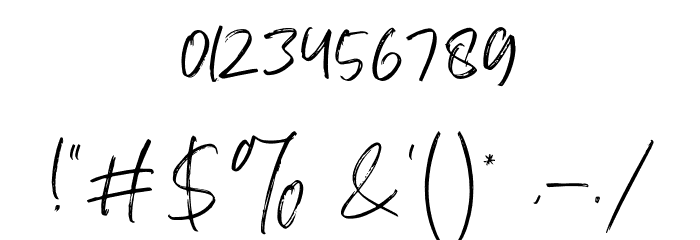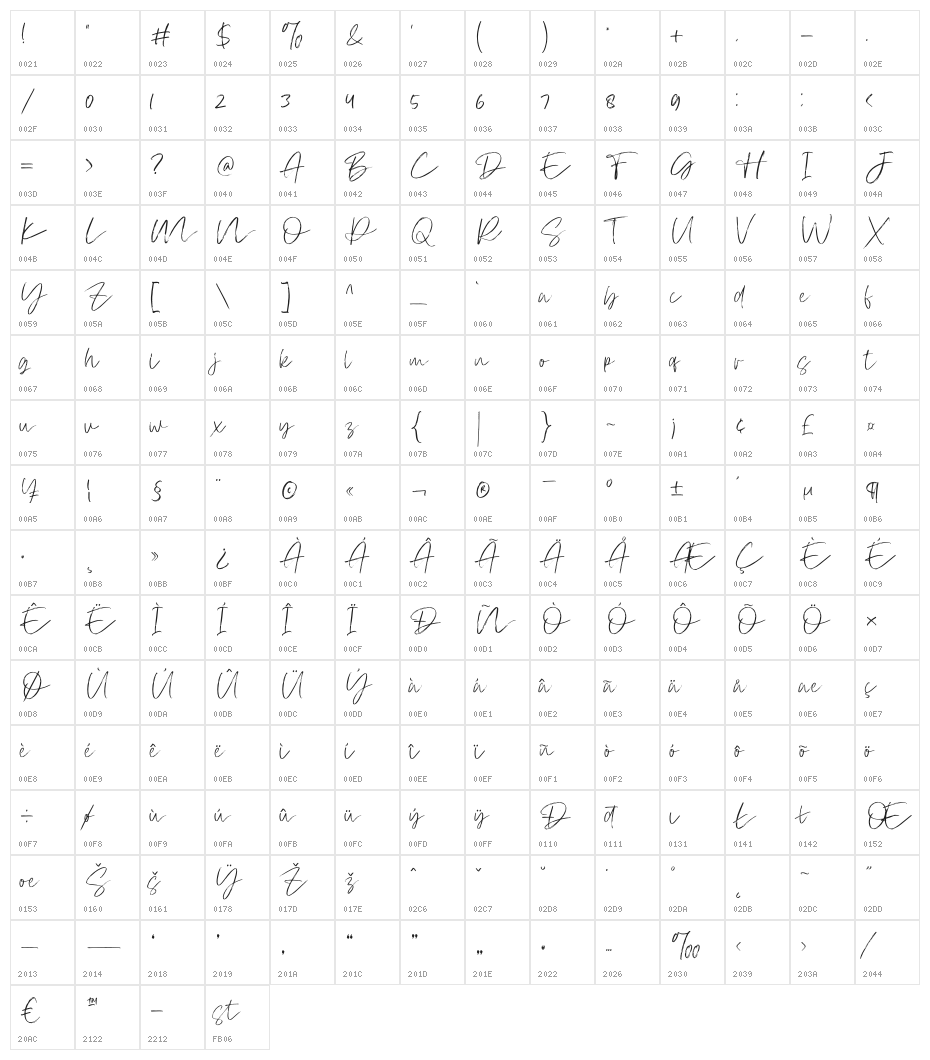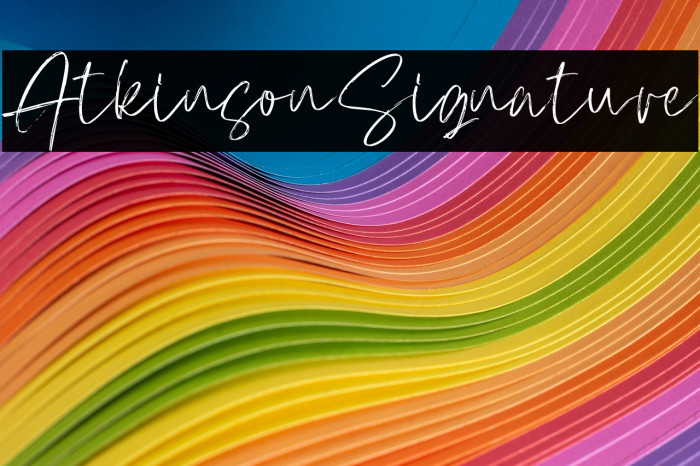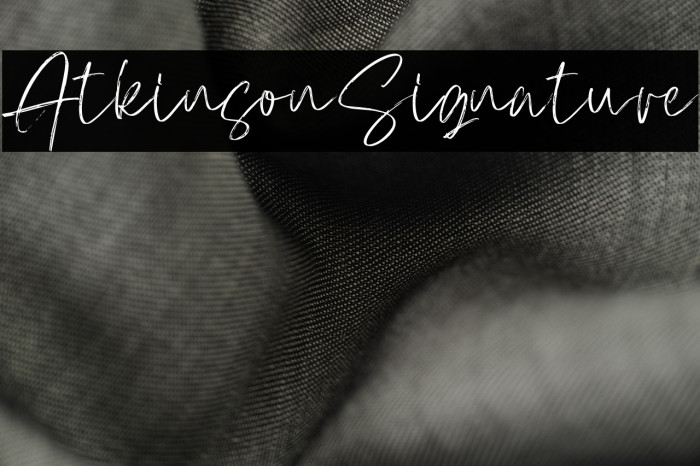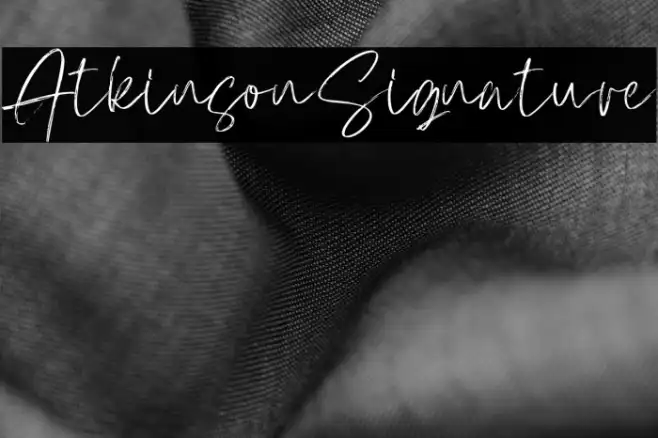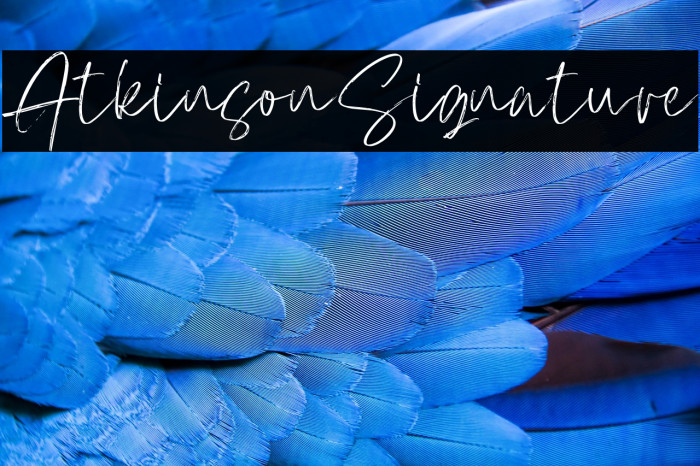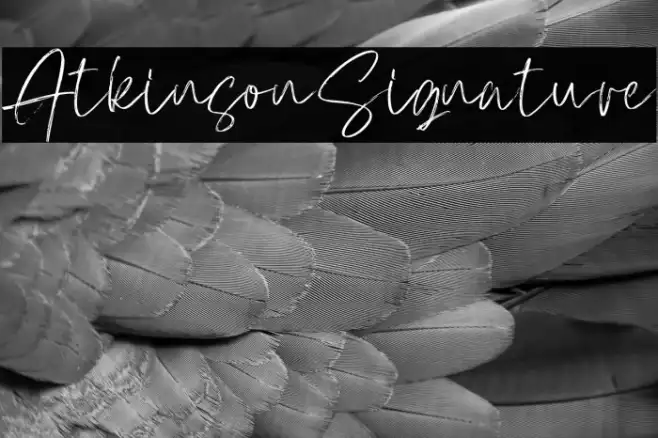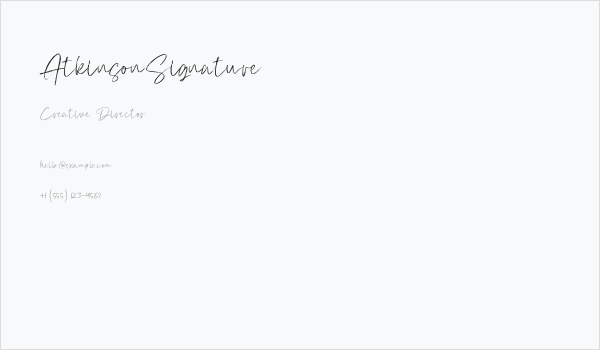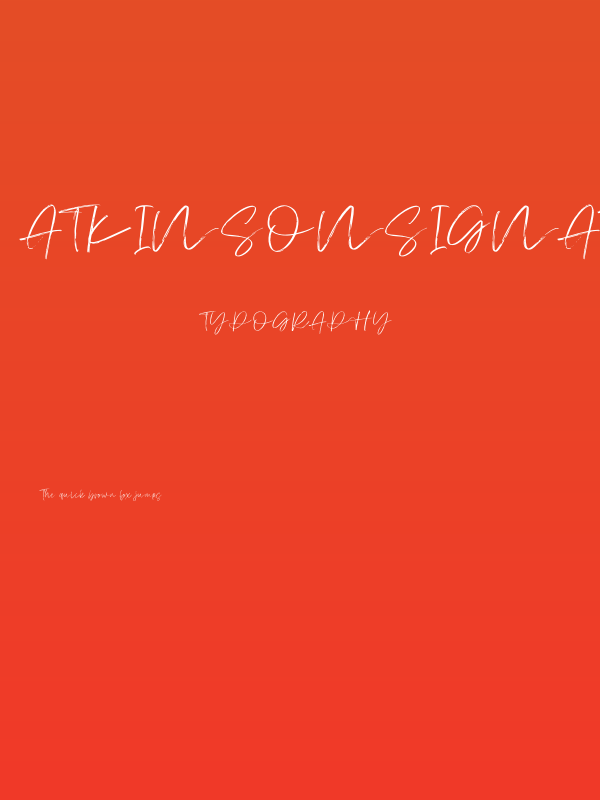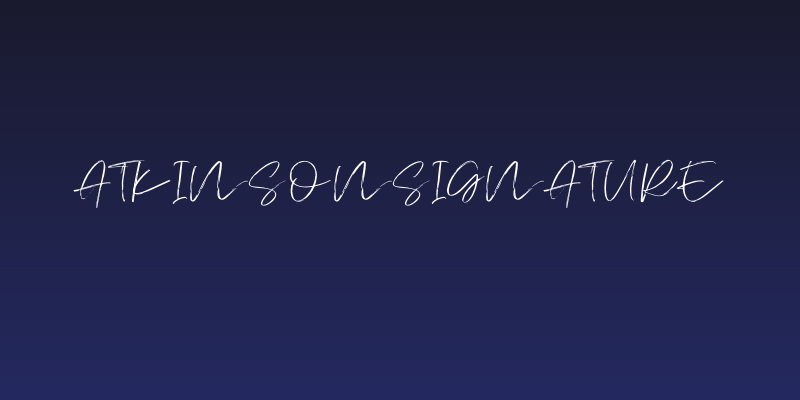
AtkinsonSignature Font
AtkinsonSignature Description
This font exudes a casual yet elegant handwritten style, characterized by its fluid and natural strokes. The letters are connected in a way that mimics authentic handwriting, with varying stroke widths that add a dynamic and personal touch. The uppercase letters maintain a consistent height, while the lowercase letters exhibit a playful bounce, enhancing the font's lively appearance. The numerals and special characters are crafted with the same attention to detail, ensuring a cohesive look across all glyphs. This font is perfect for projects that require a personal or artistic flair, such as invitations, greeting cards, or branding materials.